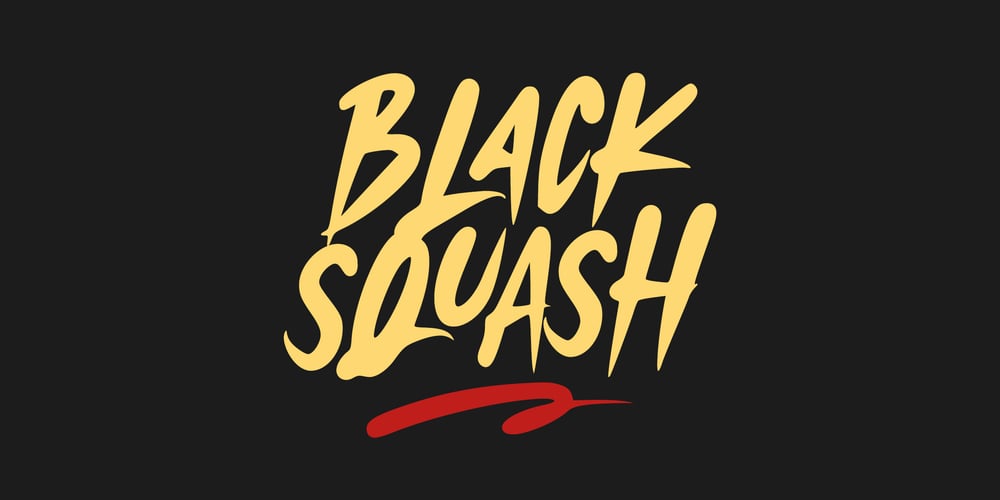
Black Squash Font Family was designed by Winarno, Eko Kurniawan and published by Enbe Studio. Black Squash contains 1 styles and family package options. Black Squash is a unique brush-style font created with a natural hand feel, giving each character an authentic and organic feel. The font features dynamic and irregular brush strokes, adding a personal and artistic touch to your designs. Ideal for posters, invitations, branding, social media graphics, and any project that requires a creative and handcrafted look. The natural brush strokes provide a warm and inviting appearance, making your text stand out with a distinctive personality. Inspired by traditional and modern calligraphy, Black Squash combines classic elements with a contemporary twist.Have a lucy day!Enbe Studio